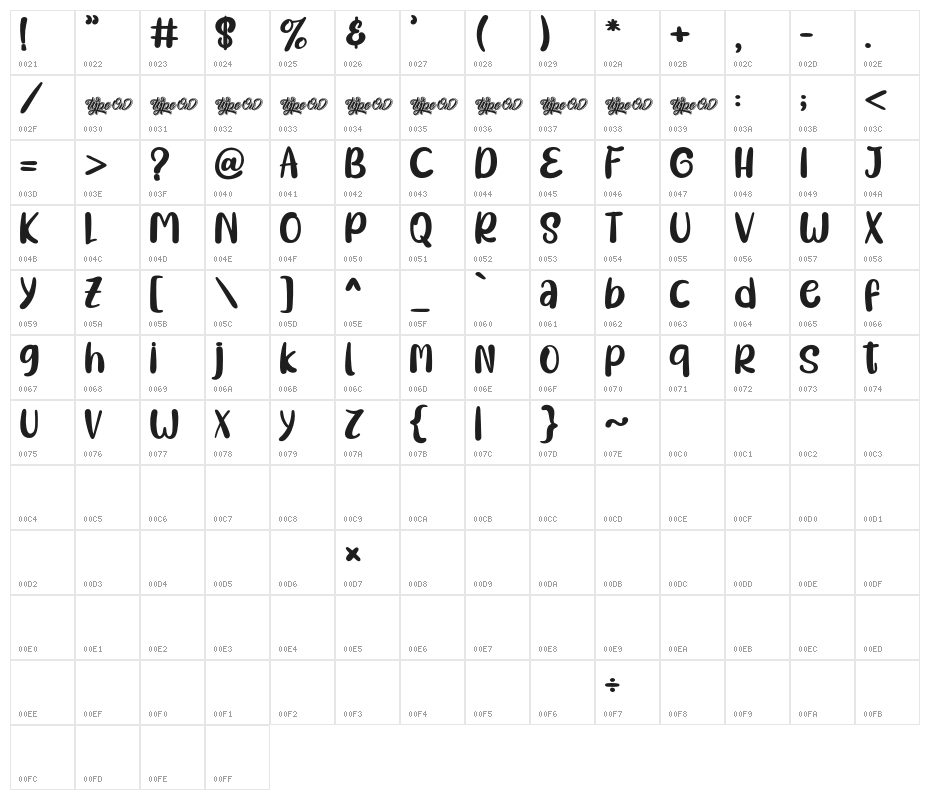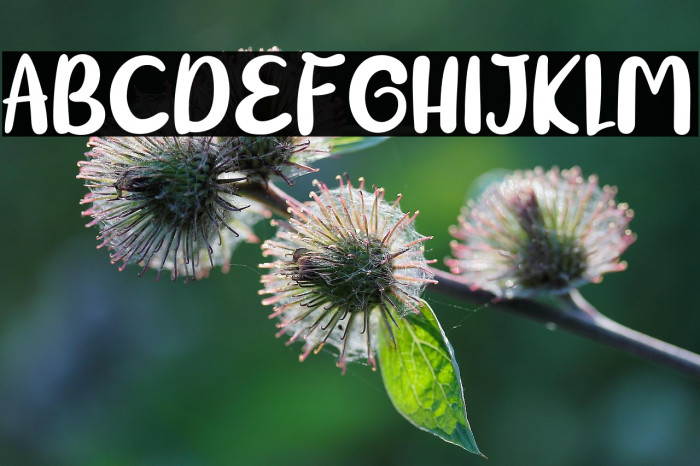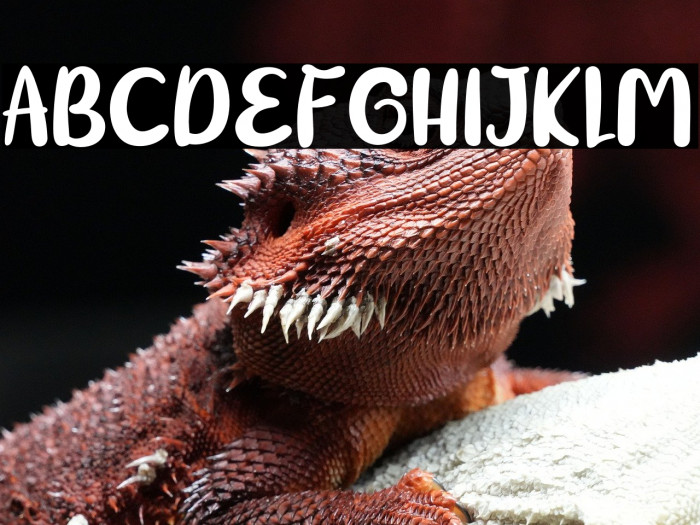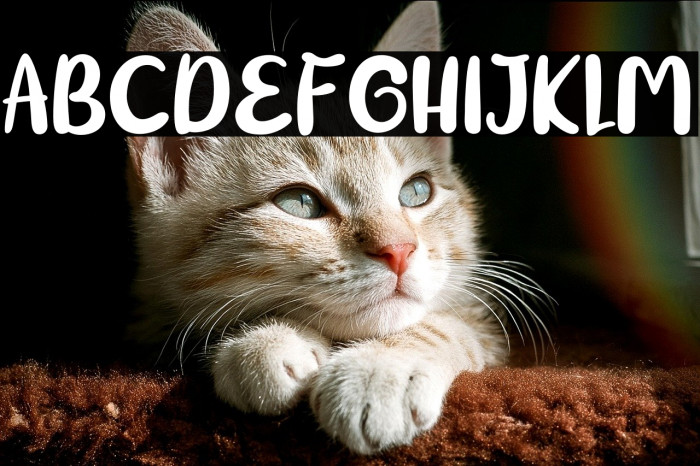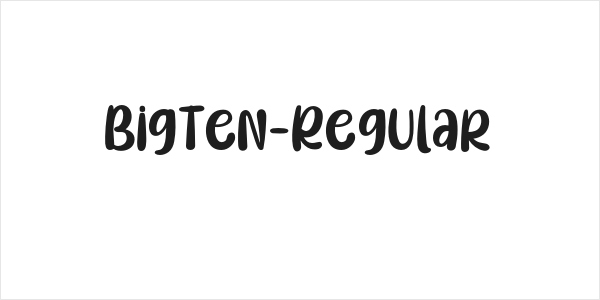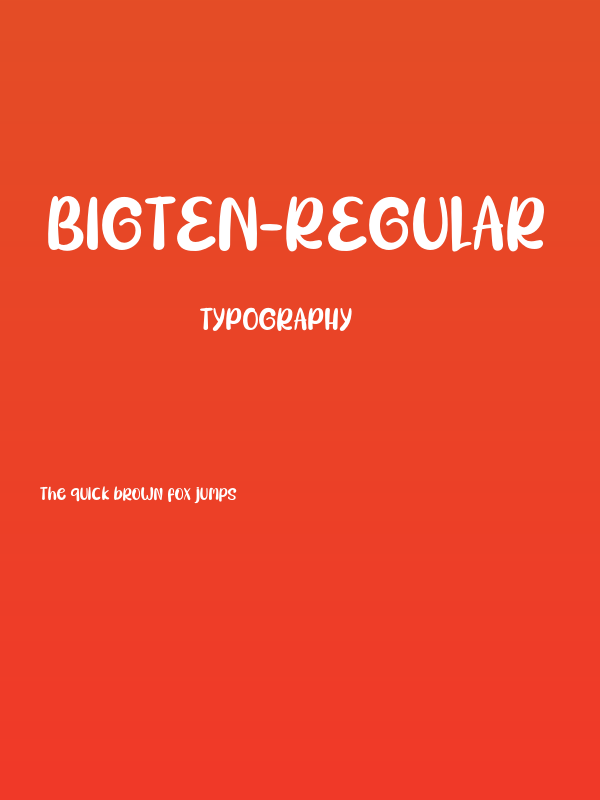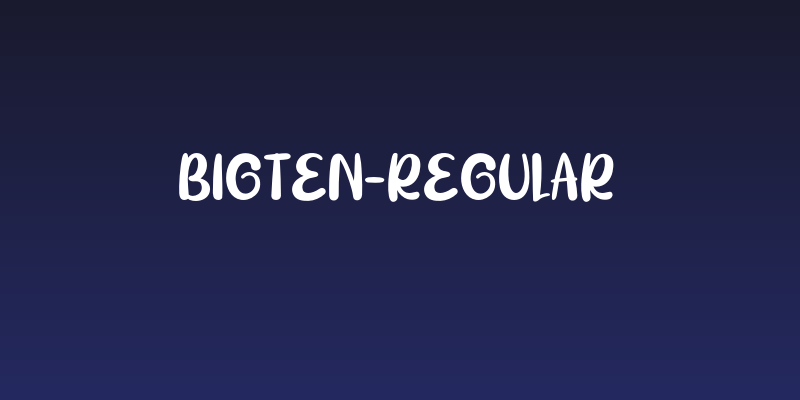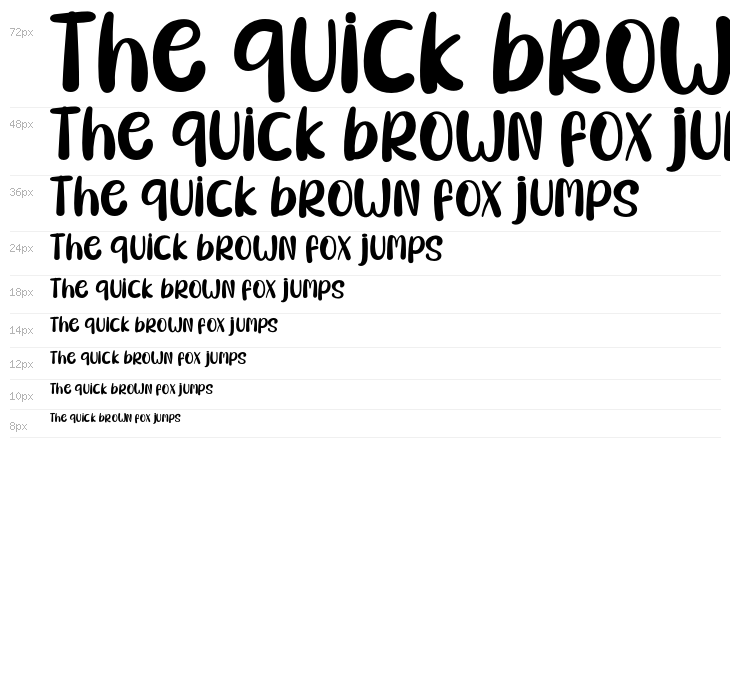
BigTen-Regular Font
BigTen-Regular Description
This font features a bold and playful design with rounded edges and a hand-drawn aesthetic. The uppercase and lowercase letters are characterized by their thick strokes and smooth curves, giving them a friendly and approachable look. The numbers and special characters maintain the same playful style, ensuring consistency across all elements. The font's overall appearance is casual and energetic, making it suitable for projects that require a fun and informal touch. Its unique style stands out, making it ideal for creative and artistic applications.
| Overall Style | Playful, Casual |
| Proposed Projects | Ideal for children's books, playful branding, posters, and creative design projects. |